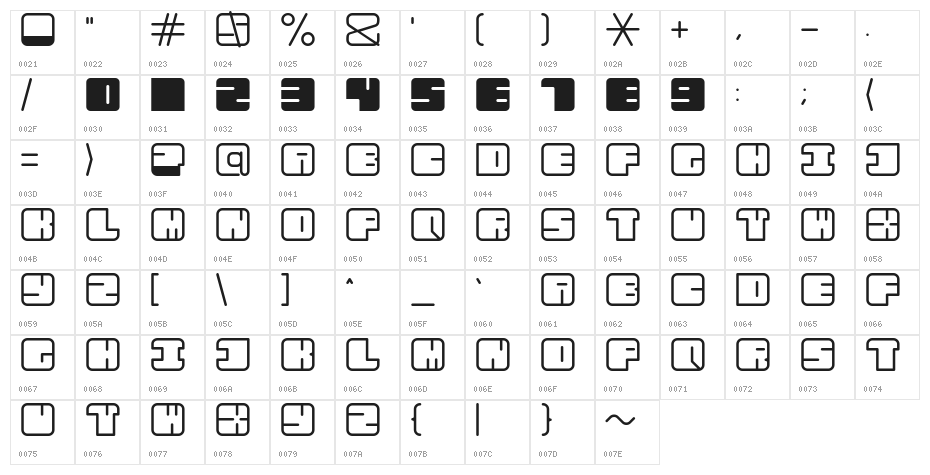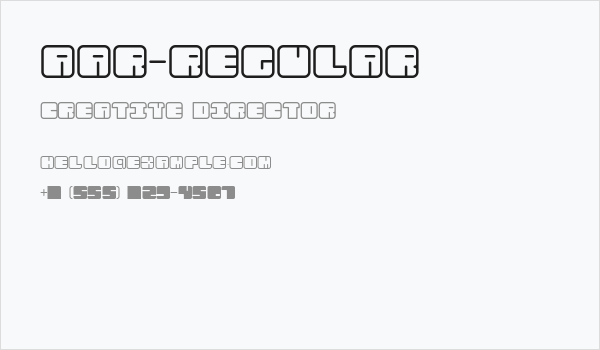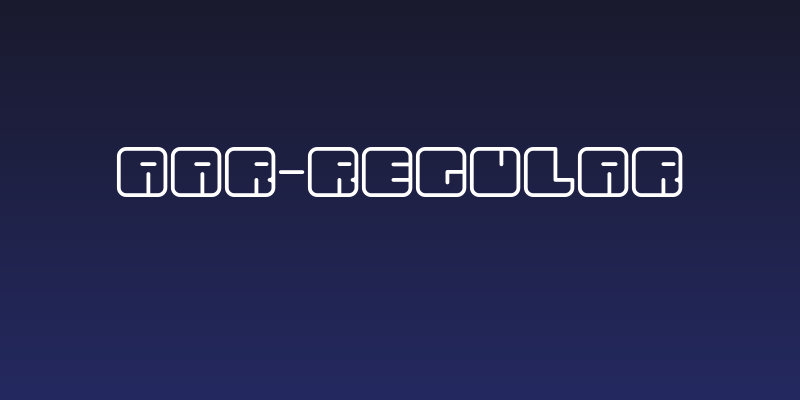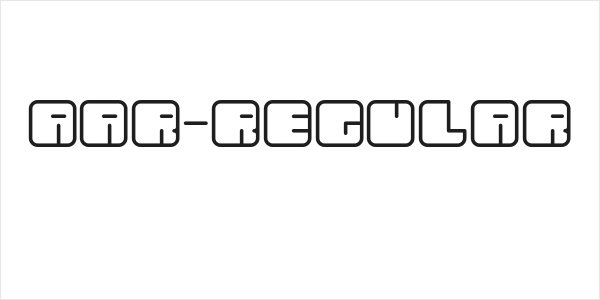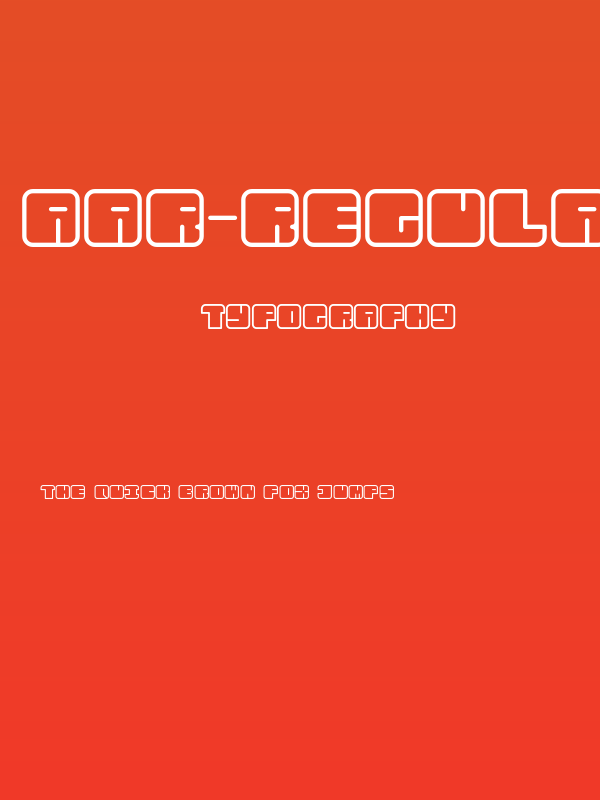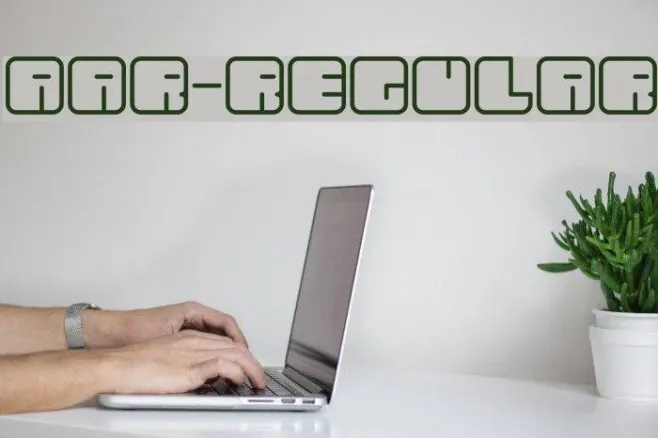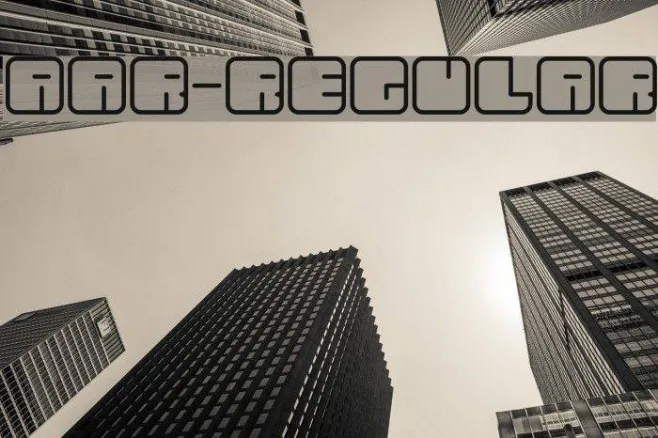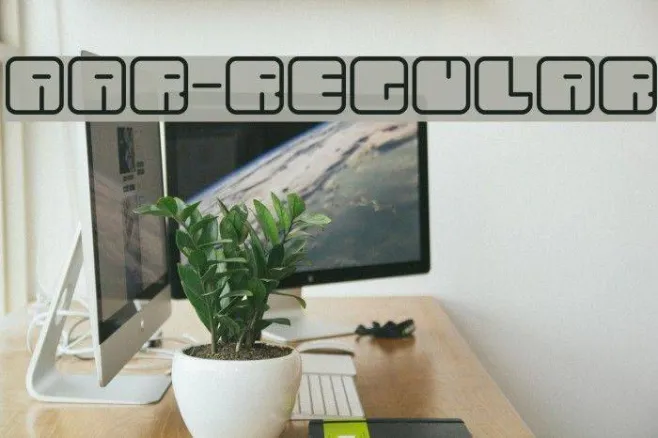
AAR-Regular Font
AAR-Regular Description
This font features a bold, geometric design with rounded edges and a distinct outline style. The characters are enclosed in a rectangular shape, giving them a modern and futuristic appearance. The uppercase and lowercase letters maintain a consistent height, creating a uniform look. Numbers and special characters follow the same design principles, ensuring cohesion across all glyphs. The font's unique style makes it stand out, ideal for projects that require a strong visual impact.
| Proposed Projects | Ideal for branding, posters, digital media, and any project needing a futuristic and bold aesthetic. |